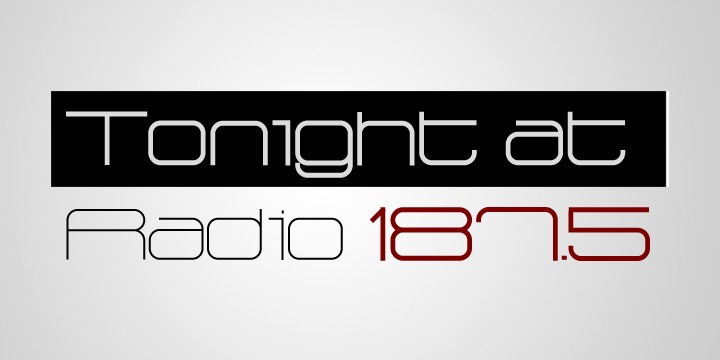
Måns Grebäck
An futuristic Science-Fiction reminding font.
Design date:
2010
Publisher:
Måns Grebäck
Radio 187.5
Radio 187.5 Bold
Radio 187.5 Outlined